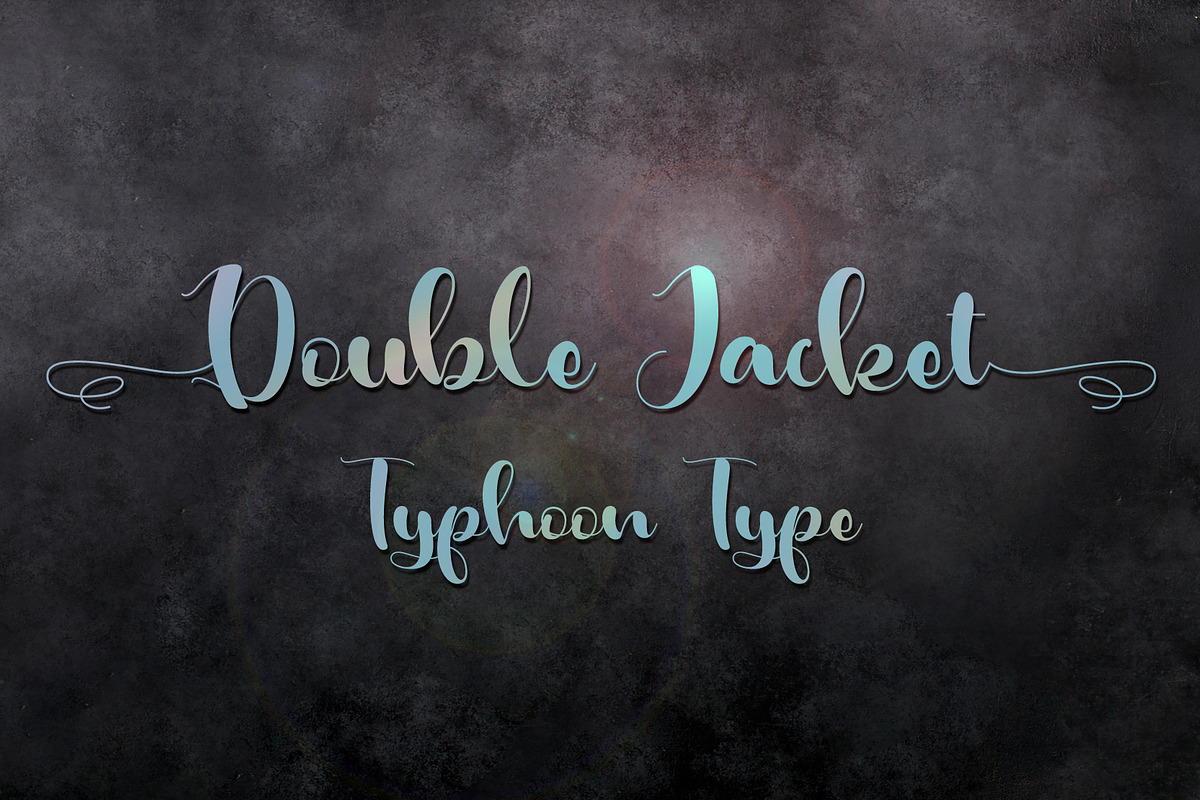
Double Jacket font
Double Jacket This font perfect for logos, name tag, advertising, product packaging, clothing, social media & greeting cards.
(Type ) after word to get the Underline swash. Example : (Double Jacket)
Why Double Jacket font is worth a look
Double Jacket font by TyphoonStudio fits naturally into Branding, posters, packaging, typography.